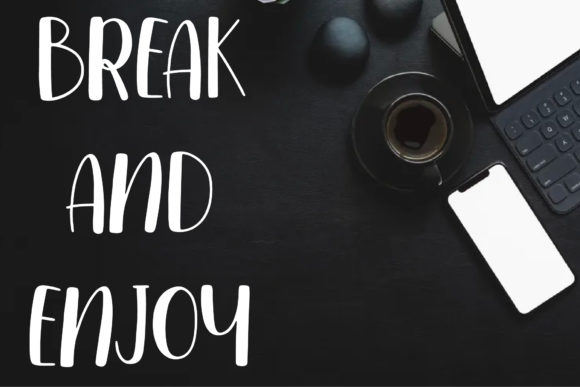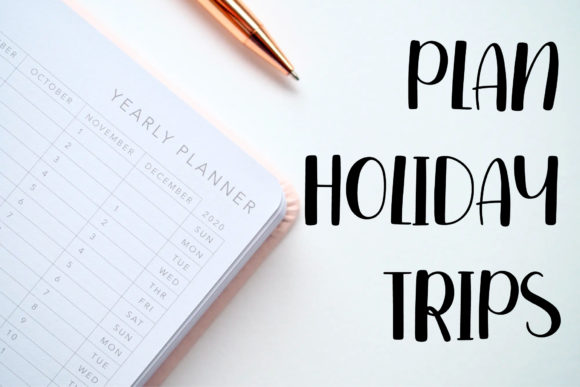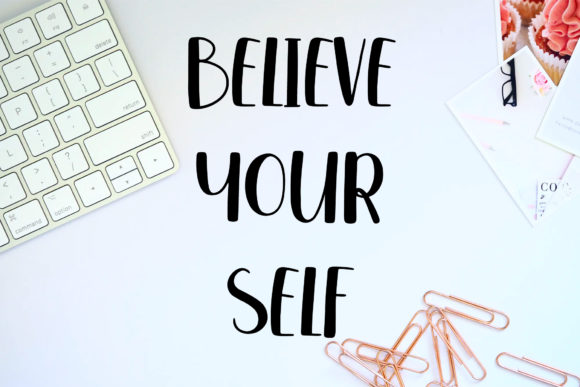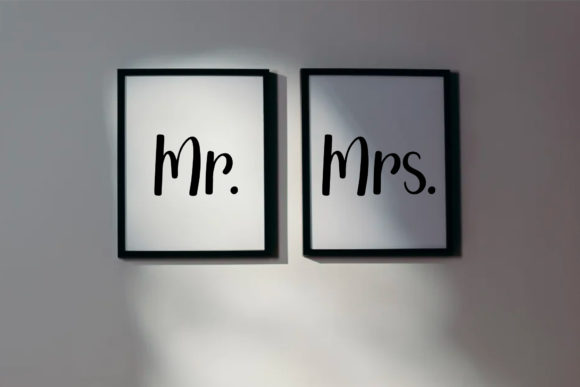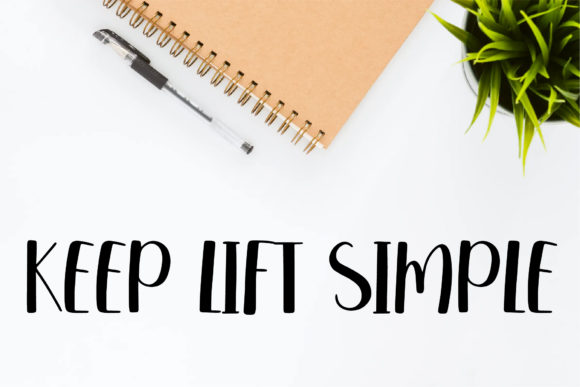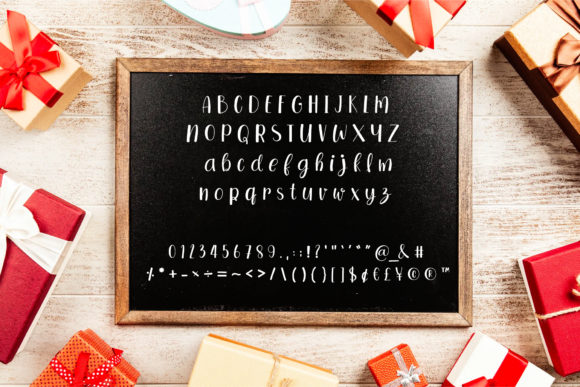
Introducing Elizabeth Font: The Sweet and Friendly Handwritten Font
Are you a designer or crafter looking for a font that can add a personal touch to your projects? Look no further than Elizabeth Font, a sweet and friendly handwritten font that’s perfect for a wide range of designs. With its natural and unique style, Elizabeth Font is incredibly versatile and can be used in various creative projects, from digital designs to handmade crafts.
The Characteristics of Elizabeth Font
Elizabeth Font is a handwritten font that exudes warmth and friendliness. Its natural and unique style makes it stand out from other fonts, and its sweet and approachable feel makes it perfect for designs that require a personal touch. The font has a distinctive, cursive feel with varying line widths, giving it a human touch that’s perfect for creating emotional connections with your audience.
The Benefits of Using Elizabeth Font
So, why choose Elizabeth Font for your designs? Here are just a few benefits of using this amazing font:
- Versatility: Elizabeth Font is incredibly versatile and can be used in a wide range of designs, from digital designs to handmade crafts. Whether you’re creating a logo, a poster, or a handmade card, Elizabeth Font is the perfect choice.
- Emotional Connection: The font’s natural and unique style makes it perfect for creating emotional connections with your audience. With Elizabeth Font, you can add a personal touch to your designs that will resonate with your audience.
Design Ideas Using Elizabeth Font
So, what can you create with Elizabeth Font? The possibilities are endless! Here are a few design ideas to get you started:
- Handmade Cards: Add a personal touch to your handmade cards with Elizabeth Font. Whether you’re creating a birthday card or a holiday card, Elizabeth Font is the perfect choice.
- Digital Art: Use Elizabeth Font to add a touch of elegance to your digital art. Whether you’re creating a graphic illustration or a digital painting, Elizabeth Font is the perfect choice.
- Branding and Logo Design: Create a unique and memorable brand identity with Elizabeth Font. Whether you’re designing a logo or a brand identity, Elizabeth Font is the perfect choice.
Tips for Using Elizabeth Font
Here are a few tips for using Elizabeth Font in your designs:
- Experiment with Different Sizes: Elizabeth Font looks great in various sizes, from small to large. Experiment with different sizes to find the perfect fit for your design.
- Pair with Other Fonts: Elizabeth Font pairs well with other fonts, especially sans-serif fonts. Experiment with different font combinations to find the perfect pairing.
- Use in Combination with Images: Elizabeth Font looks great in combination with images, especially photographs. Use Elizabeth Font to add a touch of elegance to your images.
Elizabeth Font is a sweet and friendly handwritten font that’s perfect for designers and crafters. With its natural and unique style, Elizabeth Font is incredibly versatile and can be used in various creative projects. Whether you’re creating a digital design or a handmade craft, Elizabeth Font is the perfect choice. So why wait? Download Elizabeth Font today and unleash your creativity!